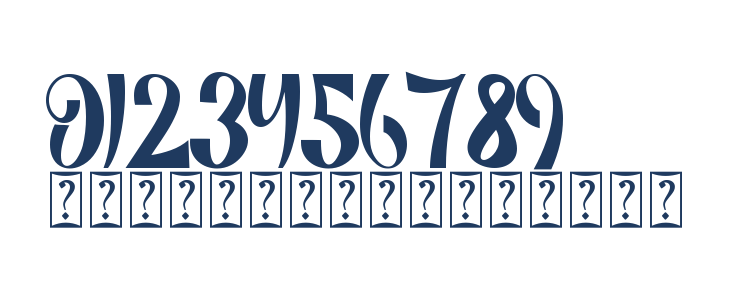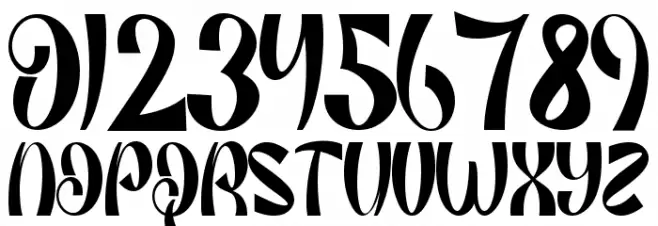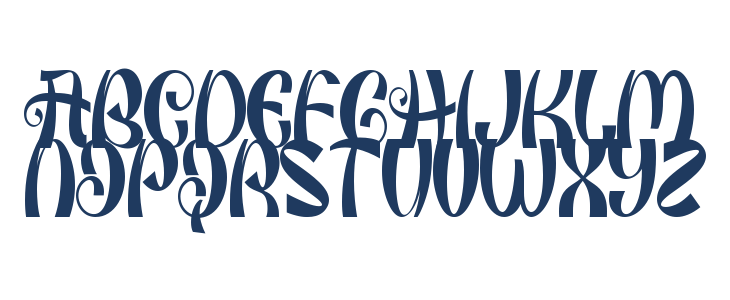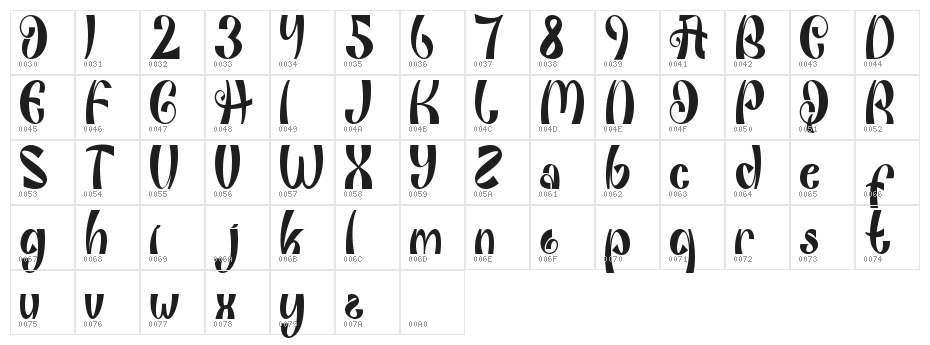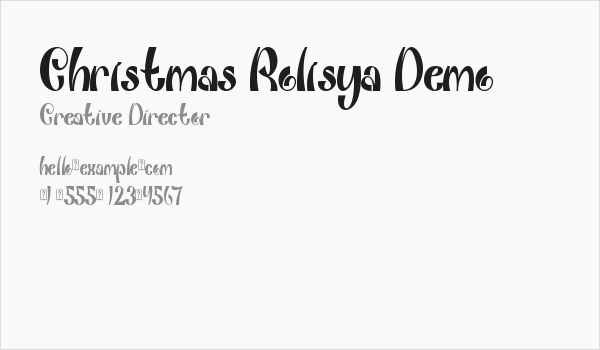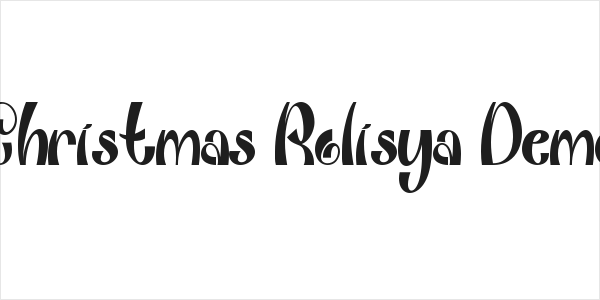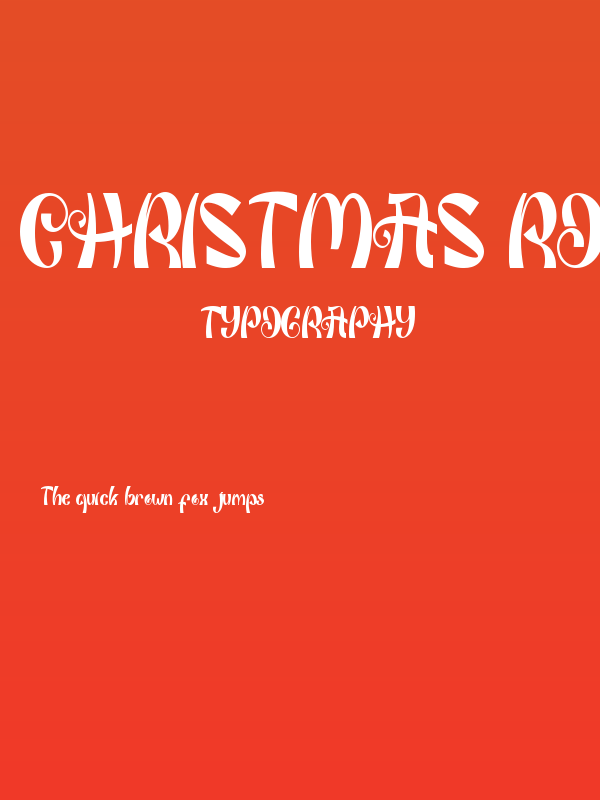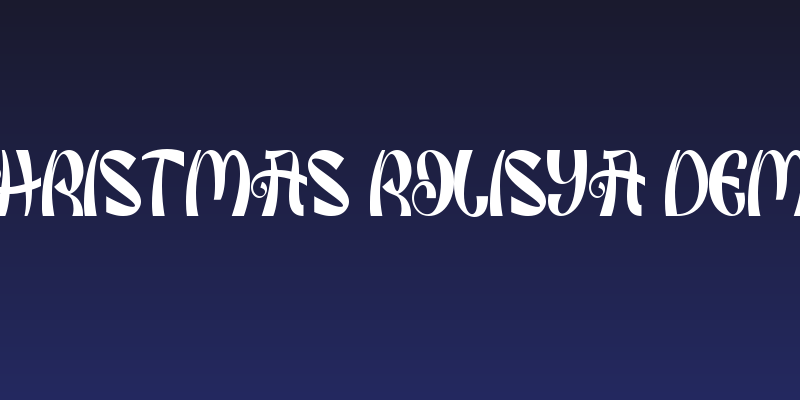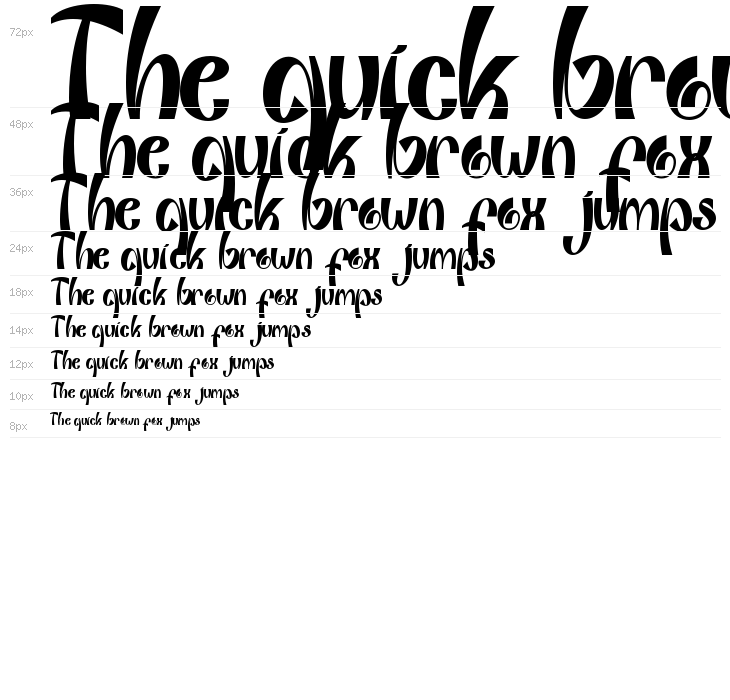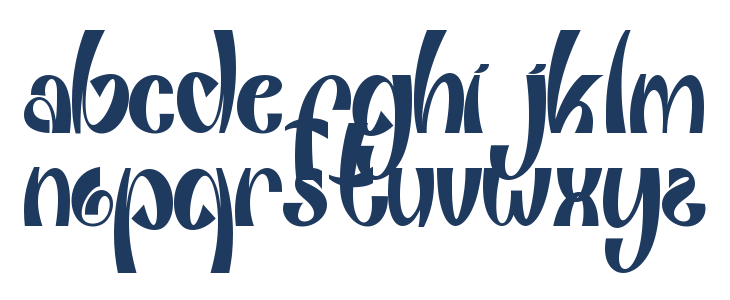
Christmas Rolisya Demo Font
Christmas Rolisya Demo Description
A playful decorative font with bold, high-contrast strokes and whimsical swirls integrated into certain characters. The letterforms are wide and rounded, with unique flourishes that give a festive and lively appearance. The font maintains legibility while emphasizing ornamental details, especially in uppercase and numerals.
| Overall Style | Decorative, Festive, Playful |
| Use Case | Headlines, Logos, Posters, Invitations |
| Proposed Projects | Holiday cards, event posters, festive branding, party invitations, seasonal packaging. |